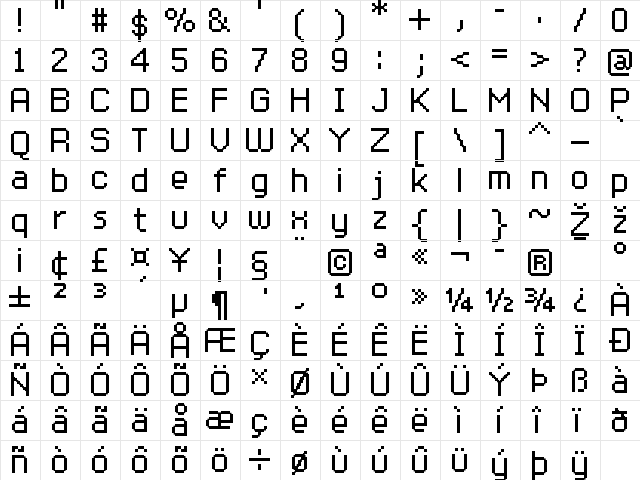
FFF Protege Extended Regular Font Preview
FFF Protege Extended Regular
FFF Protege Extended Regular Font Details
| Foundry | Fonts For Flash |
| Designer | Fonts For Flash |
Design Context for FFF Protege Extended Typeface
FFF Protege Extended takes a measured approach to typography — its balanced proportions and neutral character make it a reliable workhorse for both digital and print work.